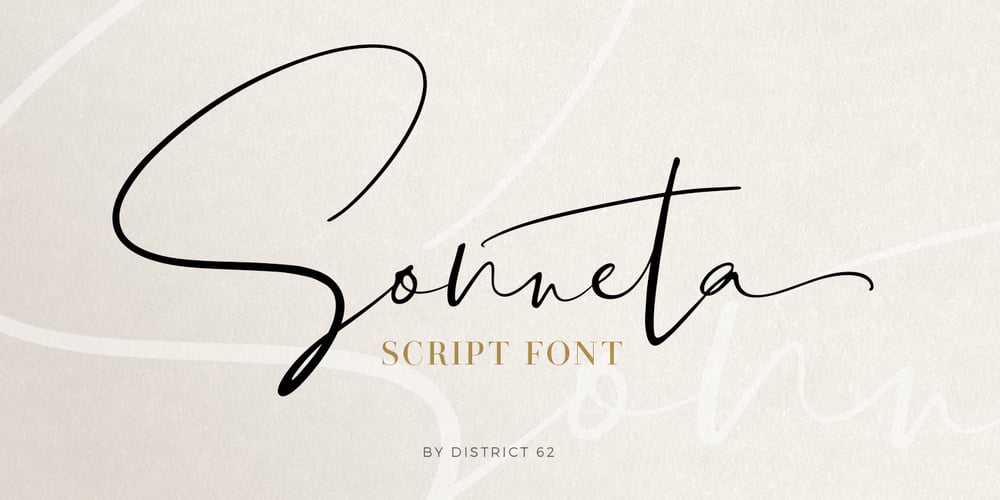
Sonneta
Sonneta font
Sonneta Font Family was designed by Megan Tamaccio and published by District 62 Studio. Sonneta contains 1 styles and family package options. Introducing Sonneta, a free flowing, modern hand drawn script. With a spontaneous feel and lots of alternates, it’s a perfect typeface for your branding projects or anywhere you need a fresh hand drawn look. Sonneta has three complete character sets plus alternates, swashes and ligatures making it look authentically handwritten – no duplication of characters here. Note the three distinct styles of capitals, making it a truly versatile font. We particularly like using the large, extravagant caps for monograms. There are also eleven swashes to provide a nice finishing touch to your design. Sonneta pairs beautifully with both sans and serif styles. We think it’s particularly successful when paired with ultra thin sans. Check out the previews to see more.